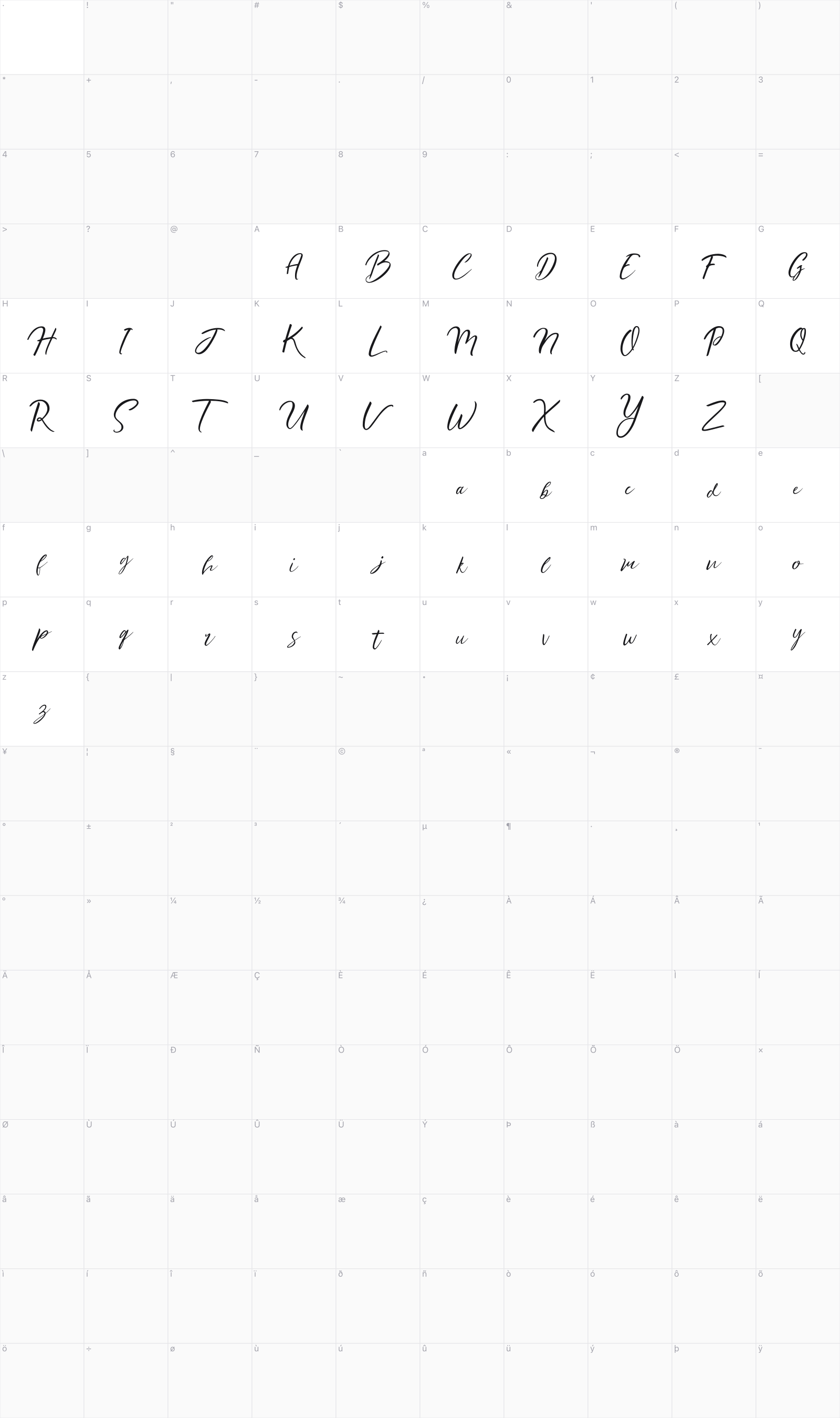
Ralyne
Ralyne is a thin, flowing handwritten script from Mindtype Co. with the graceful slope and natural variation of a real signature. The letterforms feel feminine and refined without being overly precious, carrying just enough irregularity to read as authentic rather than mechanical. A strong choice for wedding stationery, beauty branding, and editorial accents where elegance needs to feel personal.